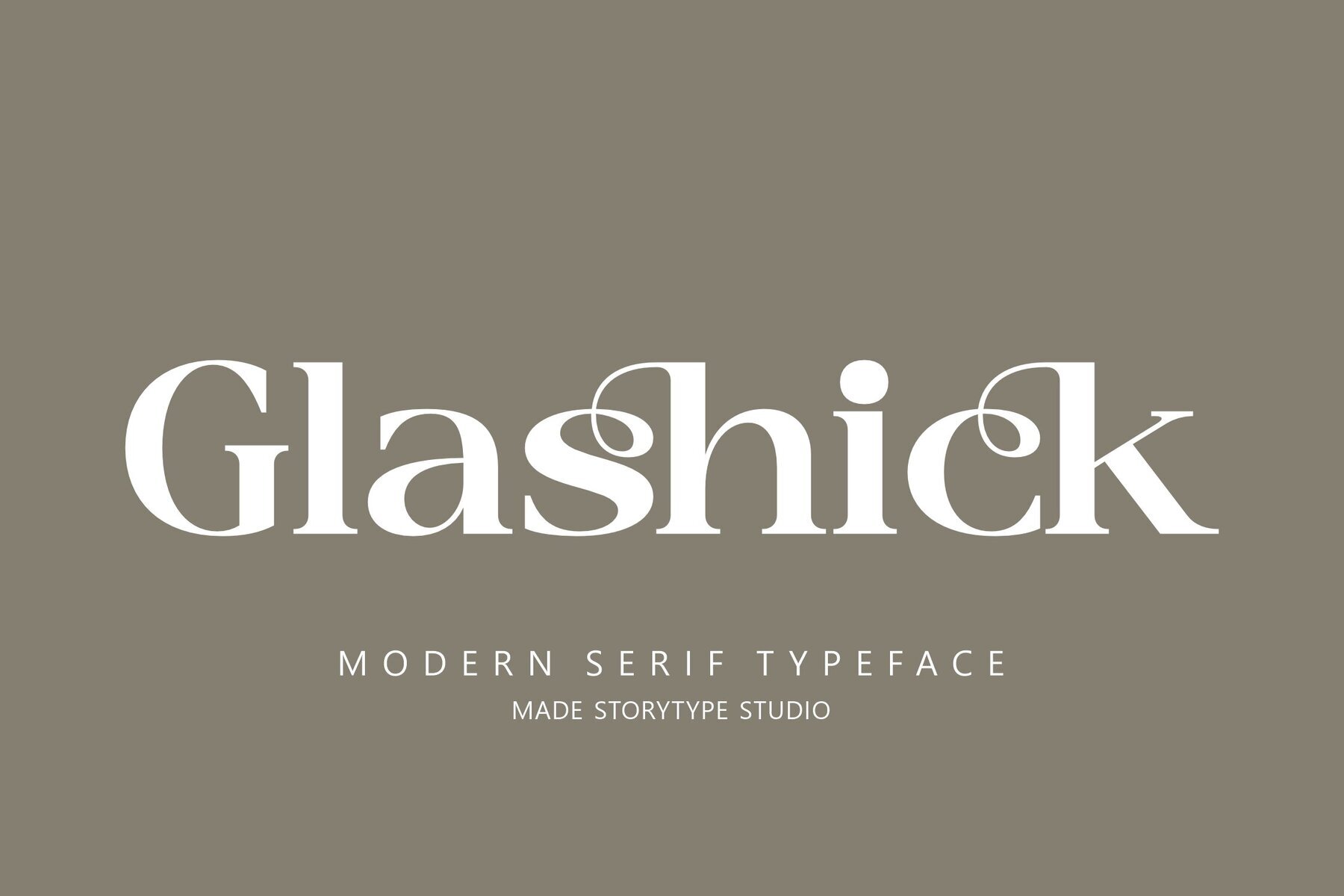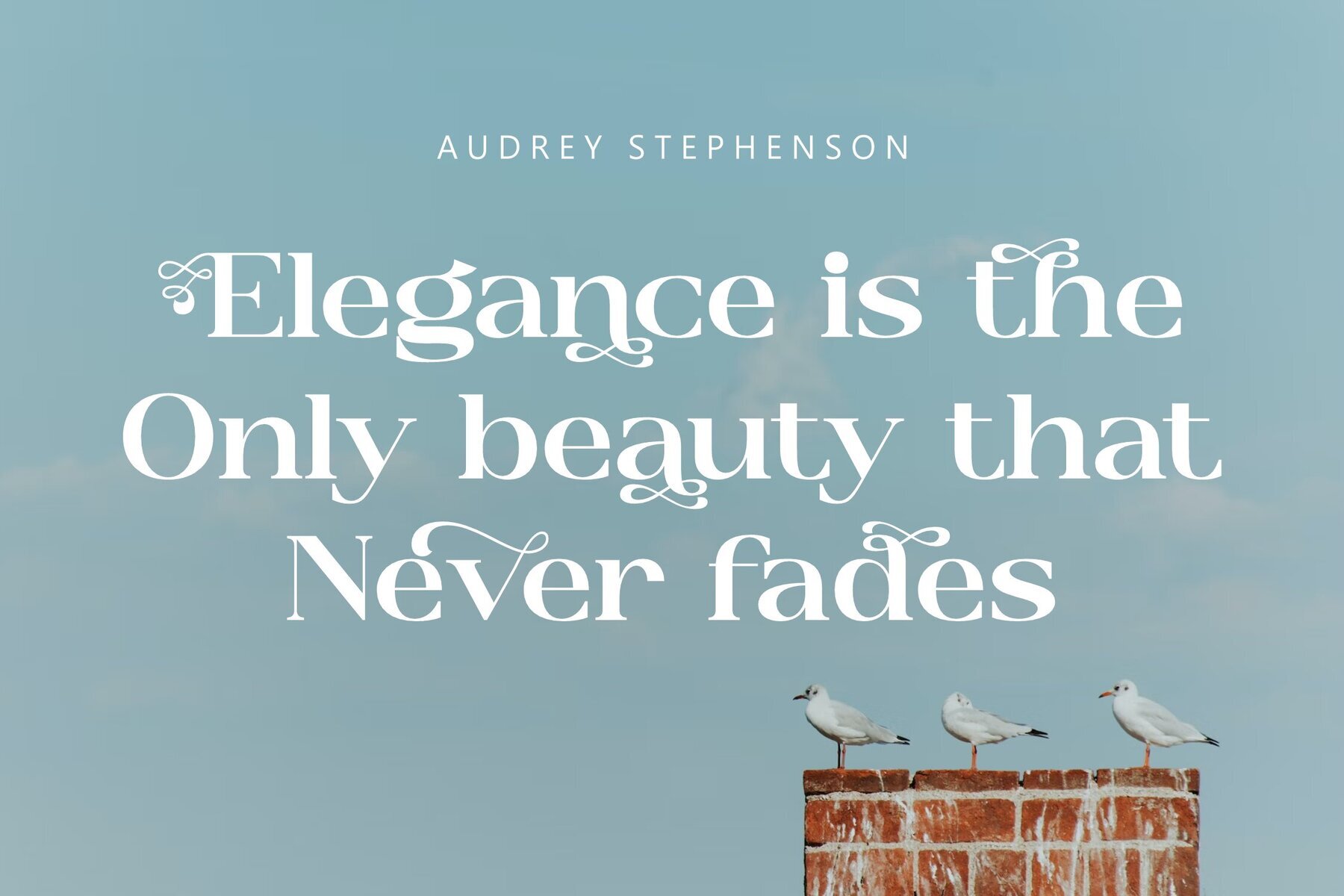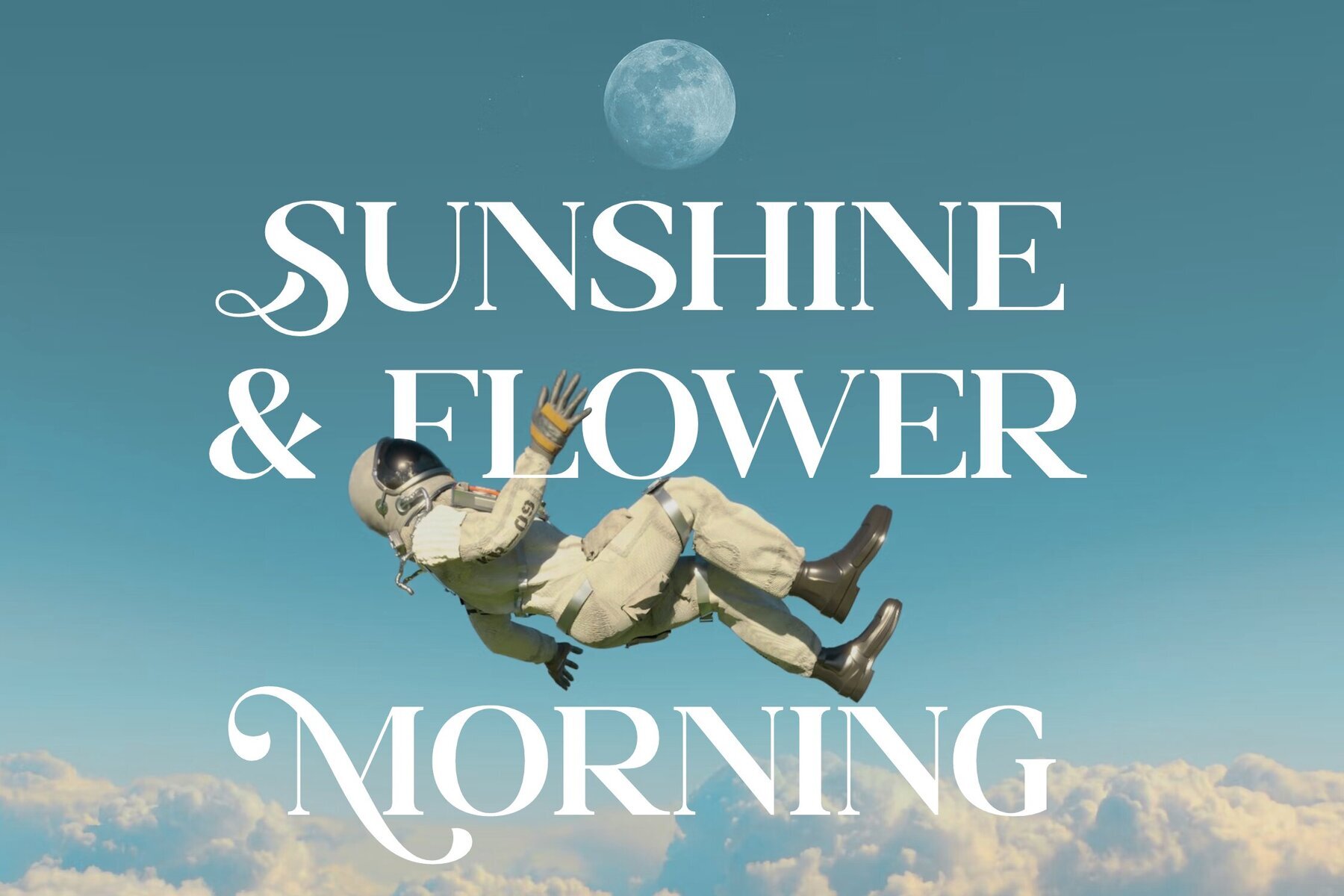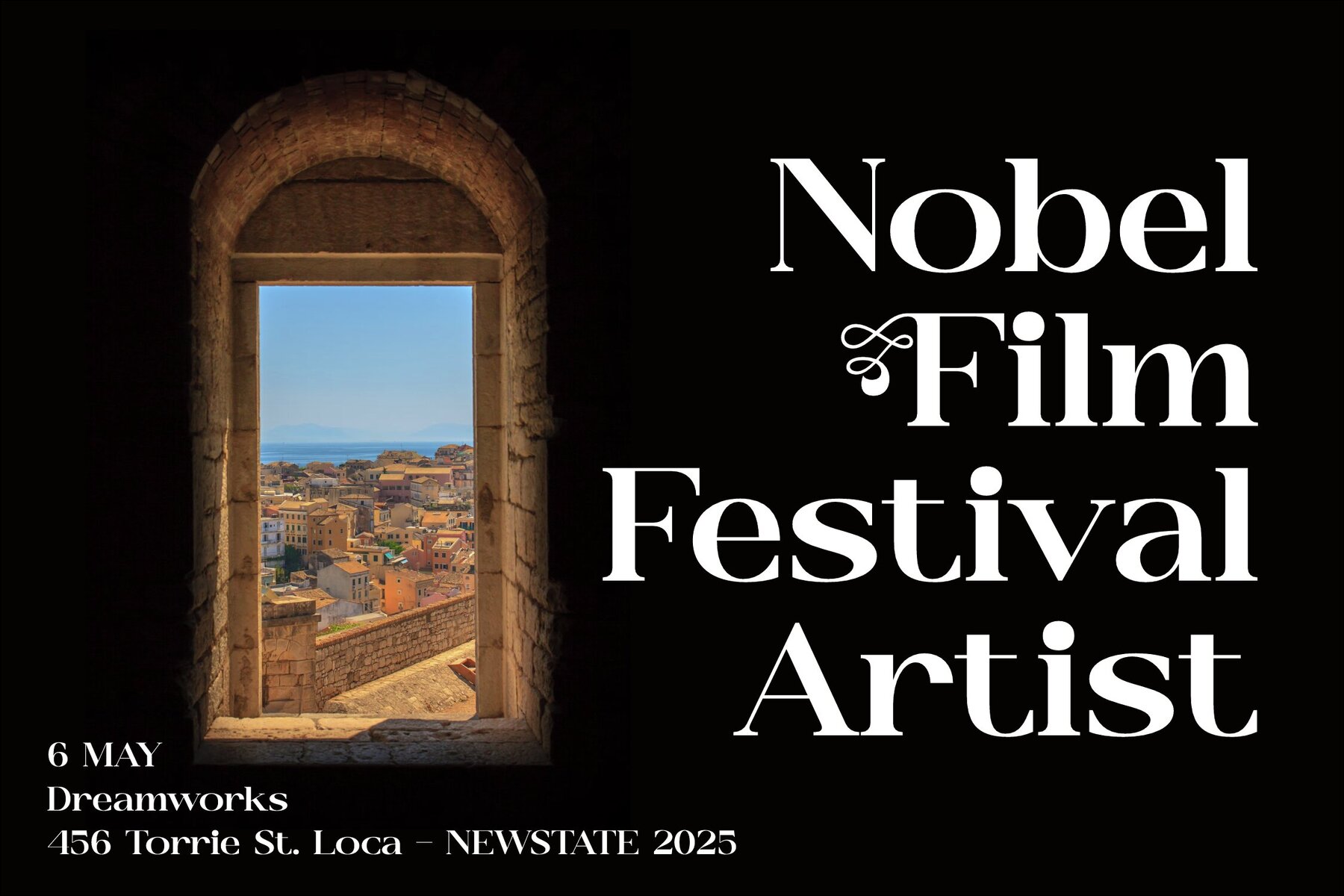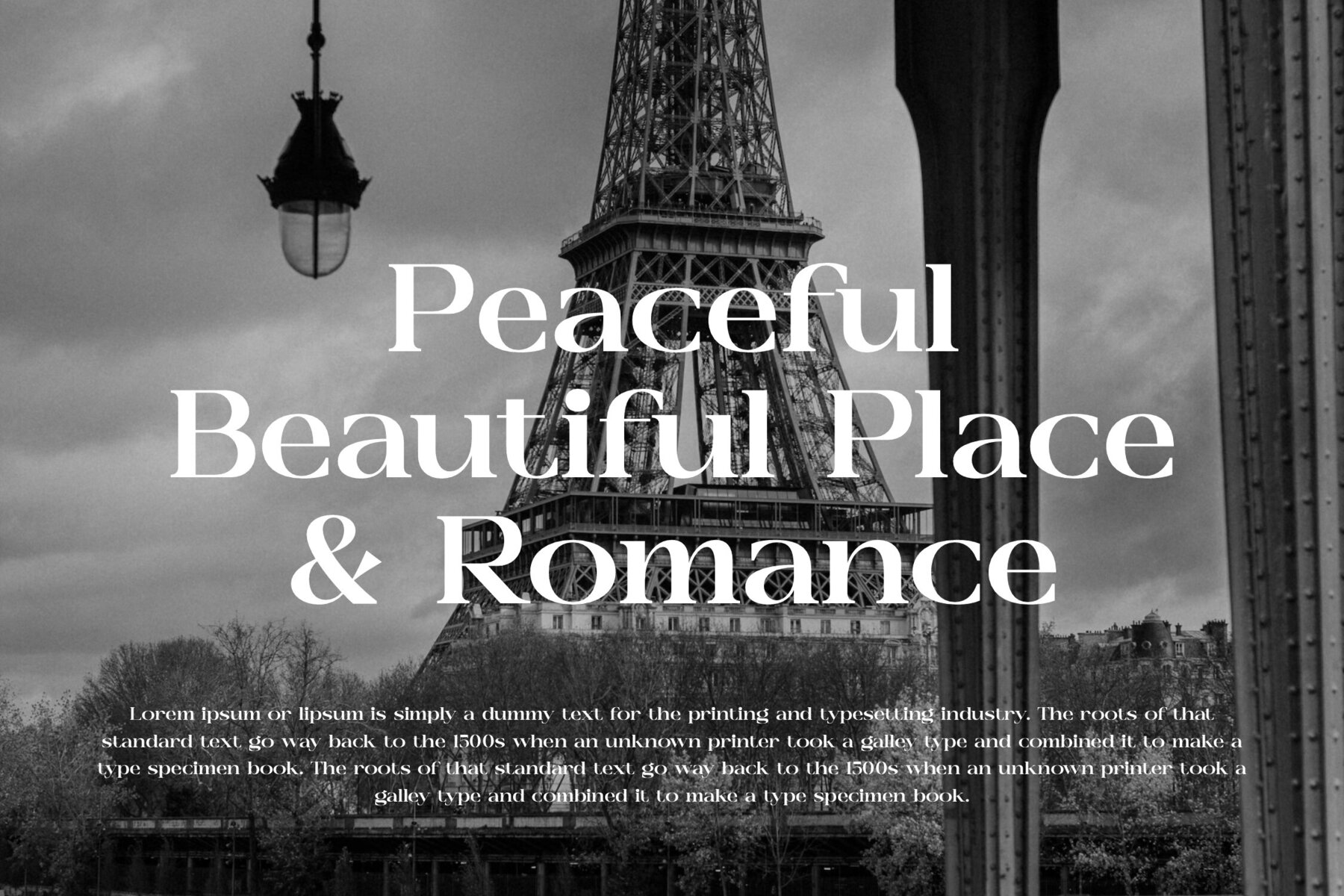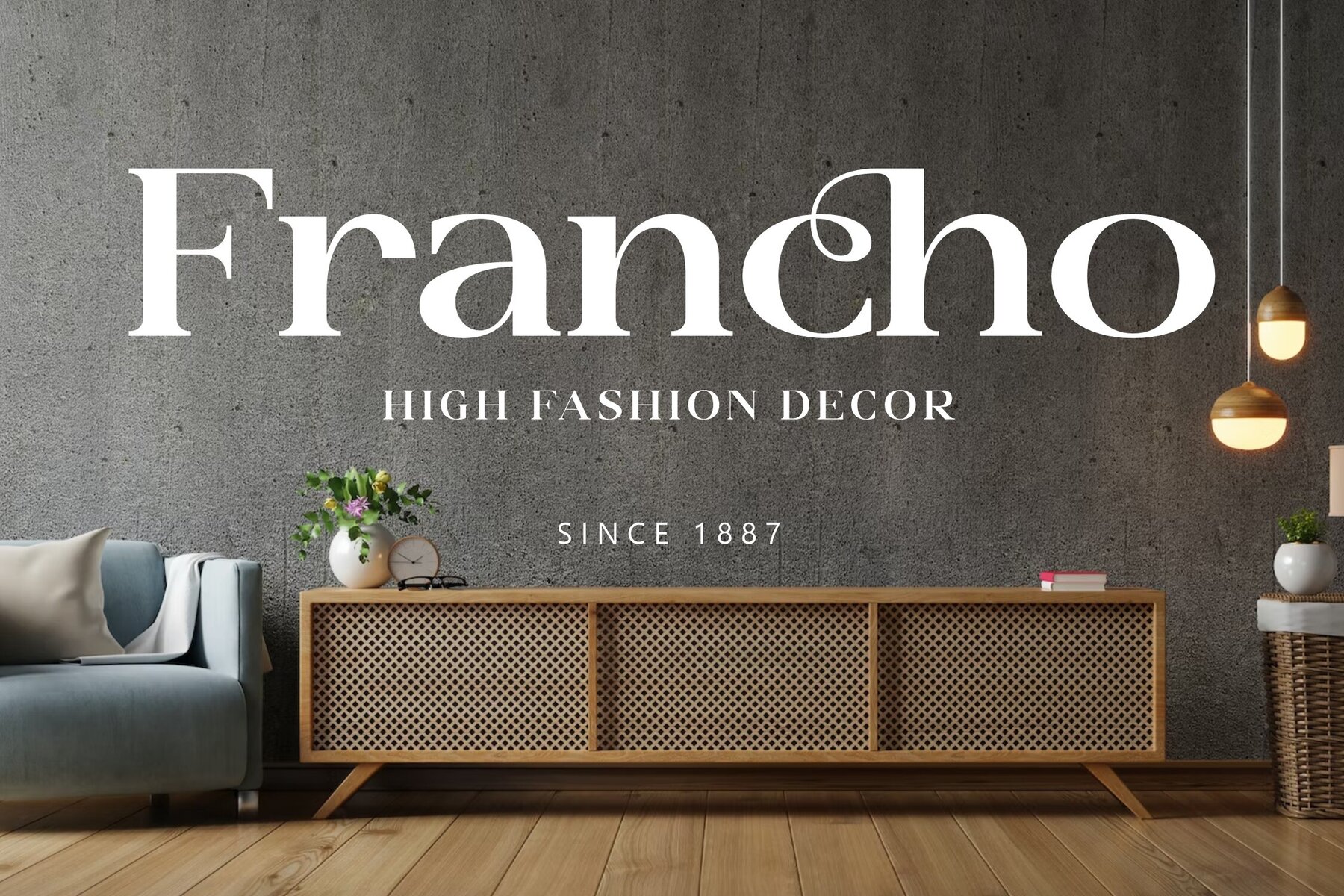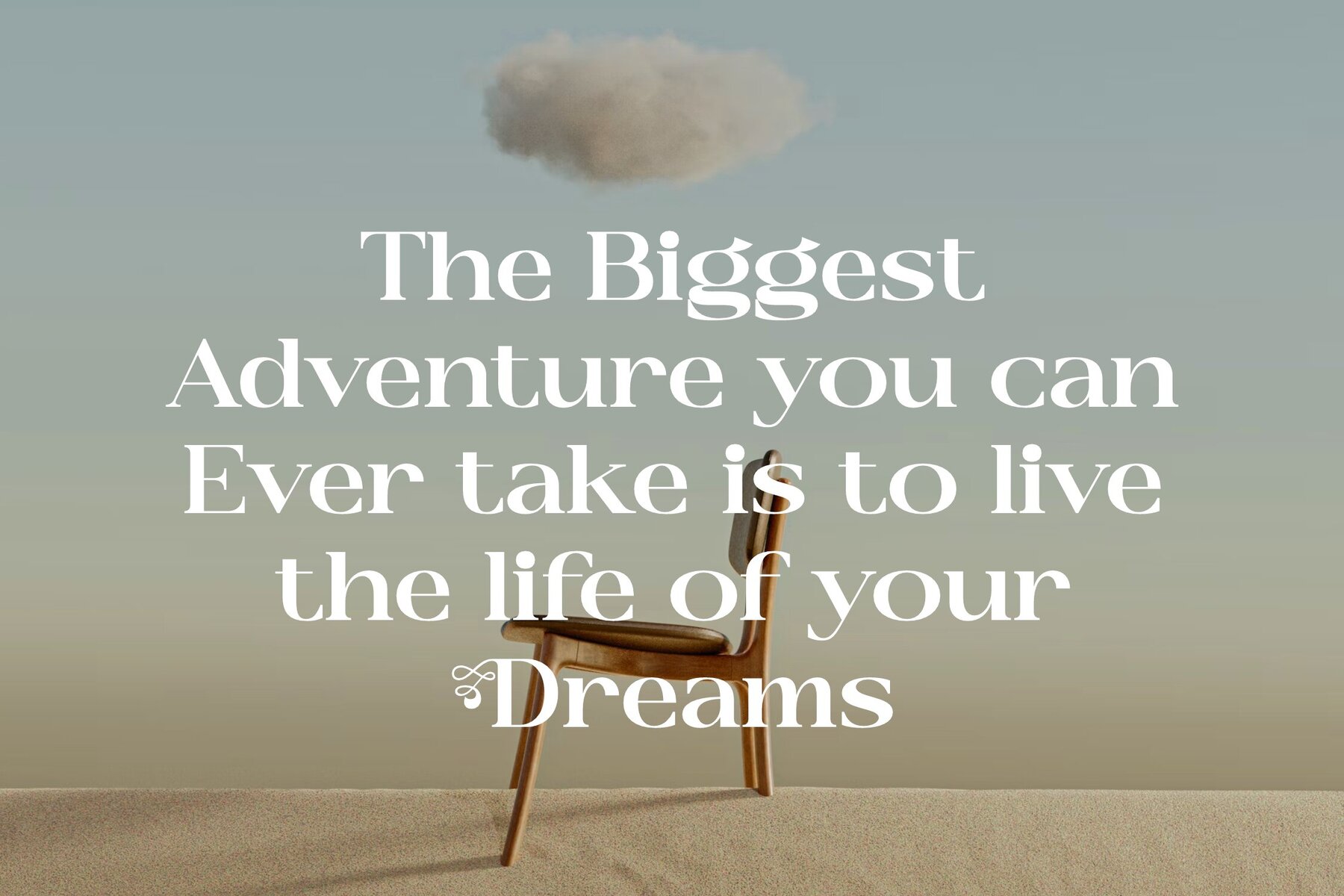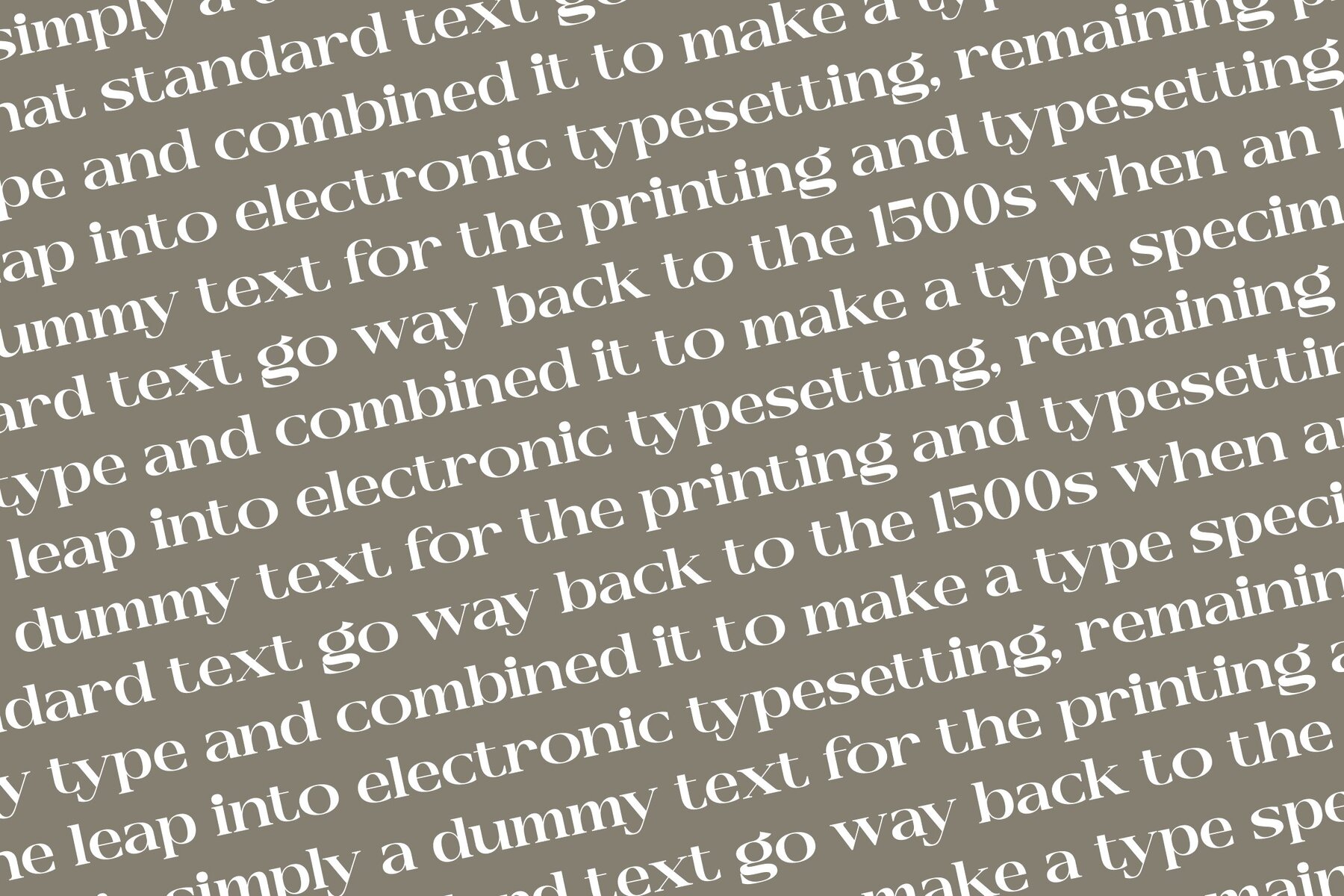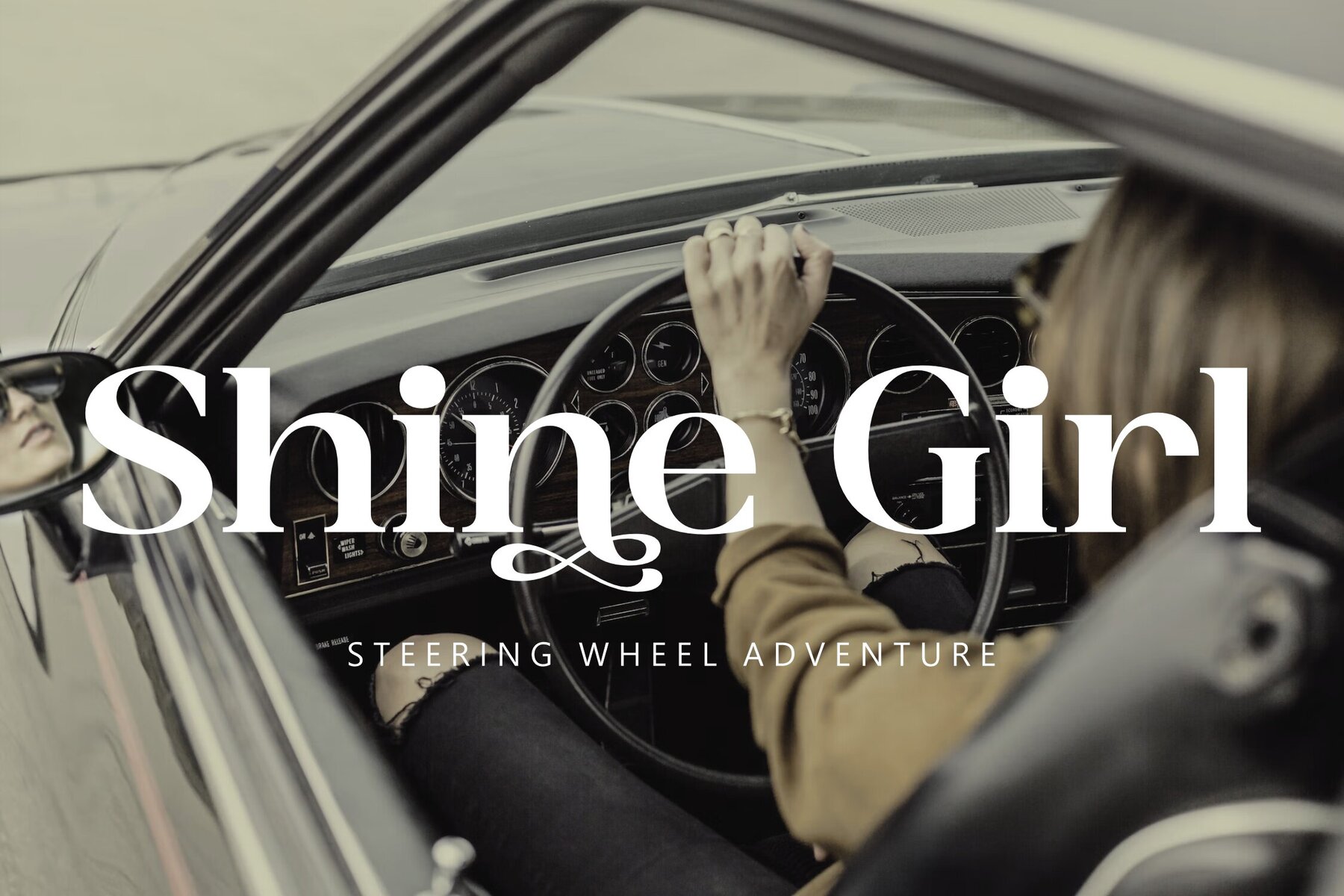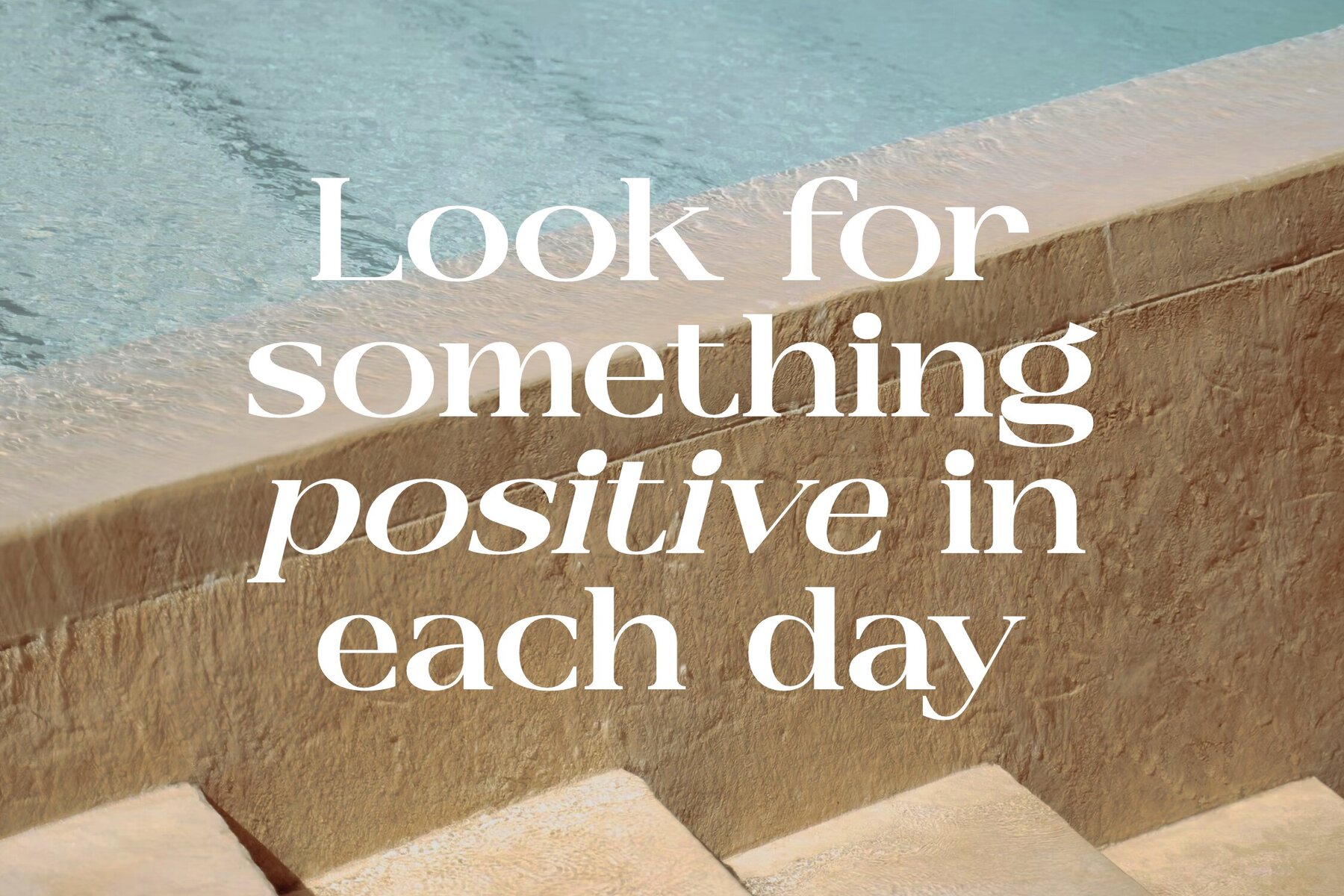
Glashick Font
Discover the refined elegance of the Glashick typeface—a harmonious blend of modern and classic serif elements crafted by Storytype Studio. With its sleek and distinctive style, Glashick is the ideal choice for creating luxury logos, captivating book and movie titles, and high-end fashion brands. Its versatility also makes it perfect for magazines, clothing lines, and inspirational quotes.Glashick Typeface: A Modern Classic